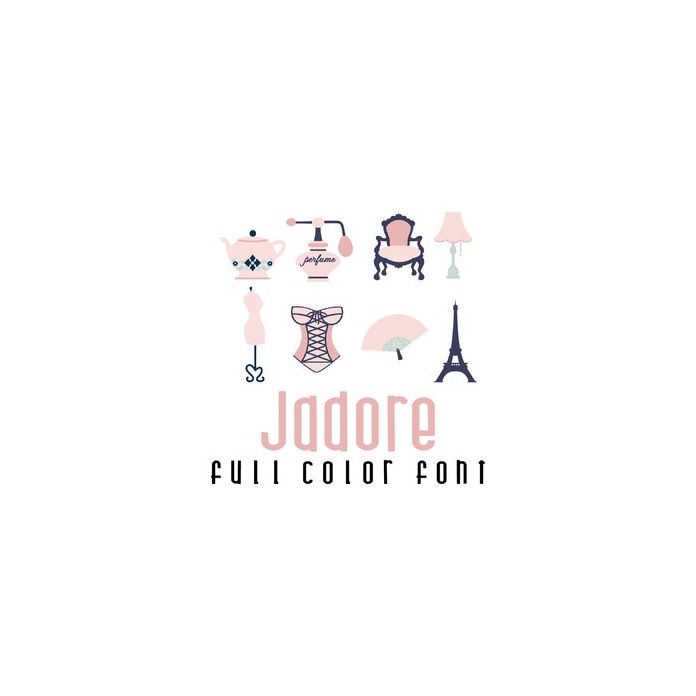
j'adore full color font
This fun doodlebat font features 26 Paris themed images. Perfect for cards, gifts, decor, crafts, scrap book pages, planner stickers and more!